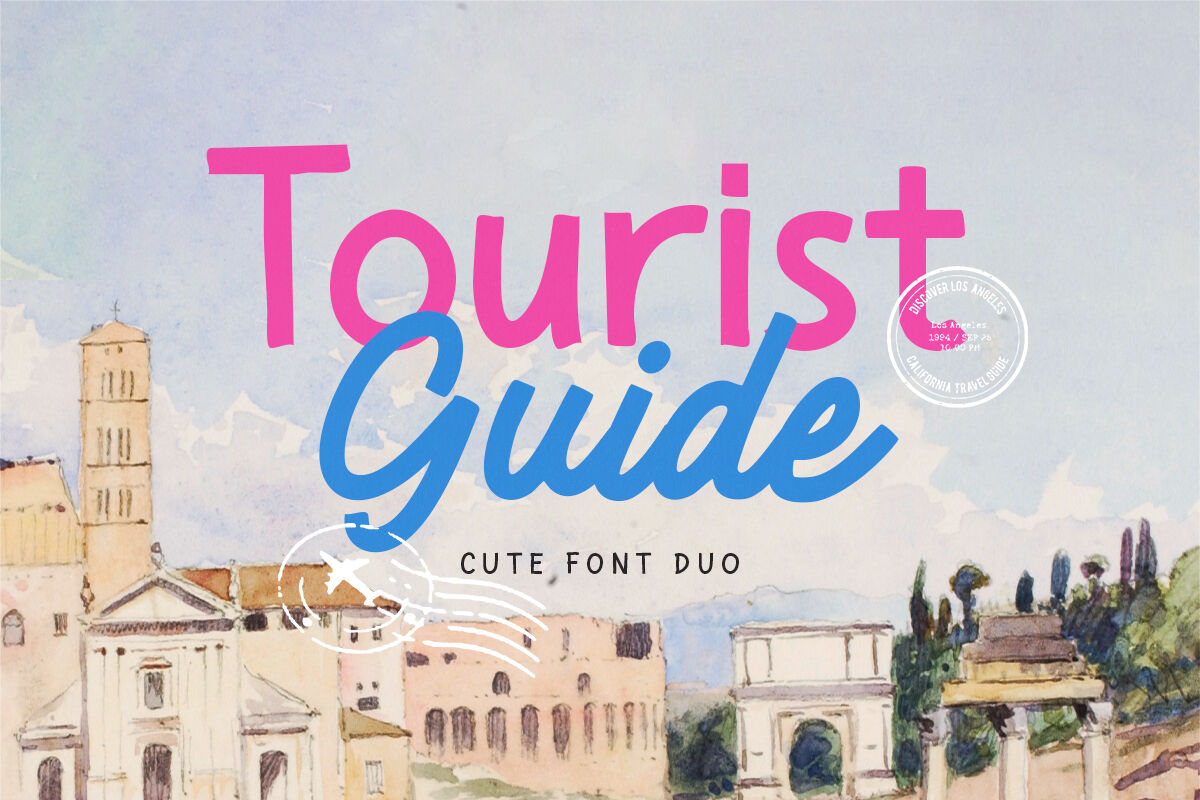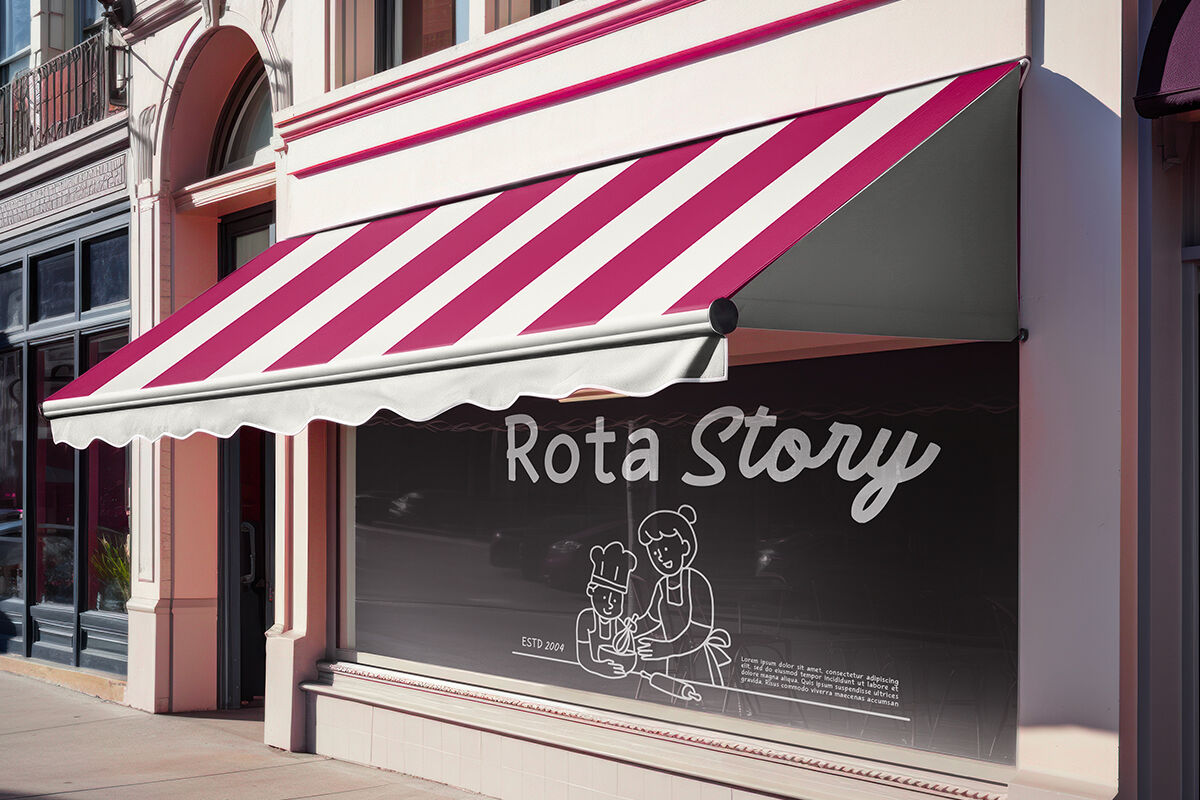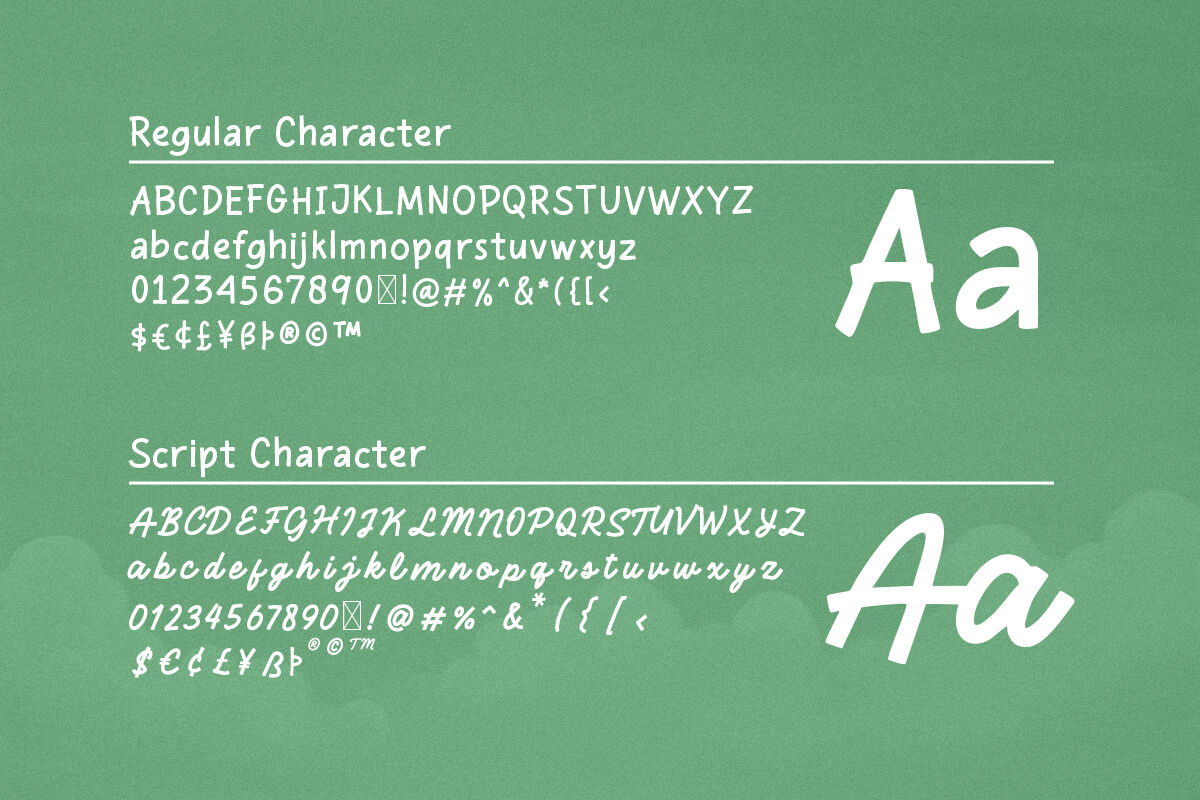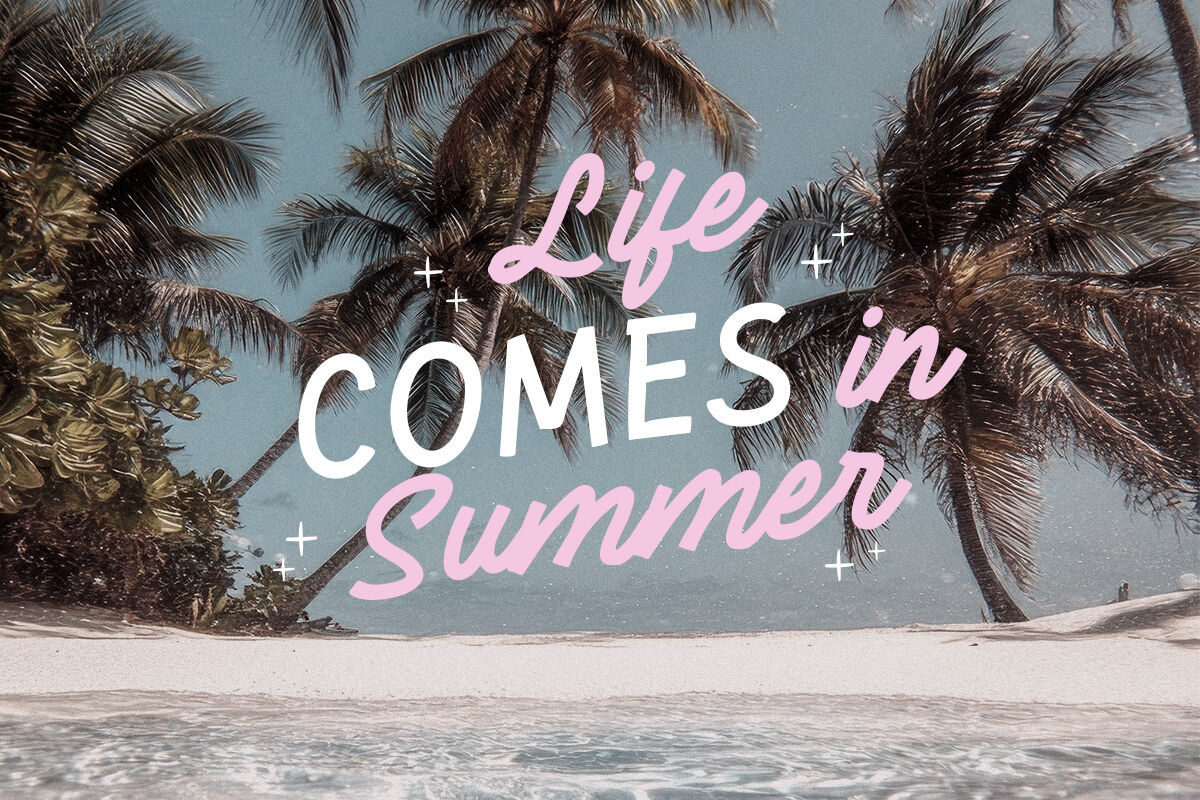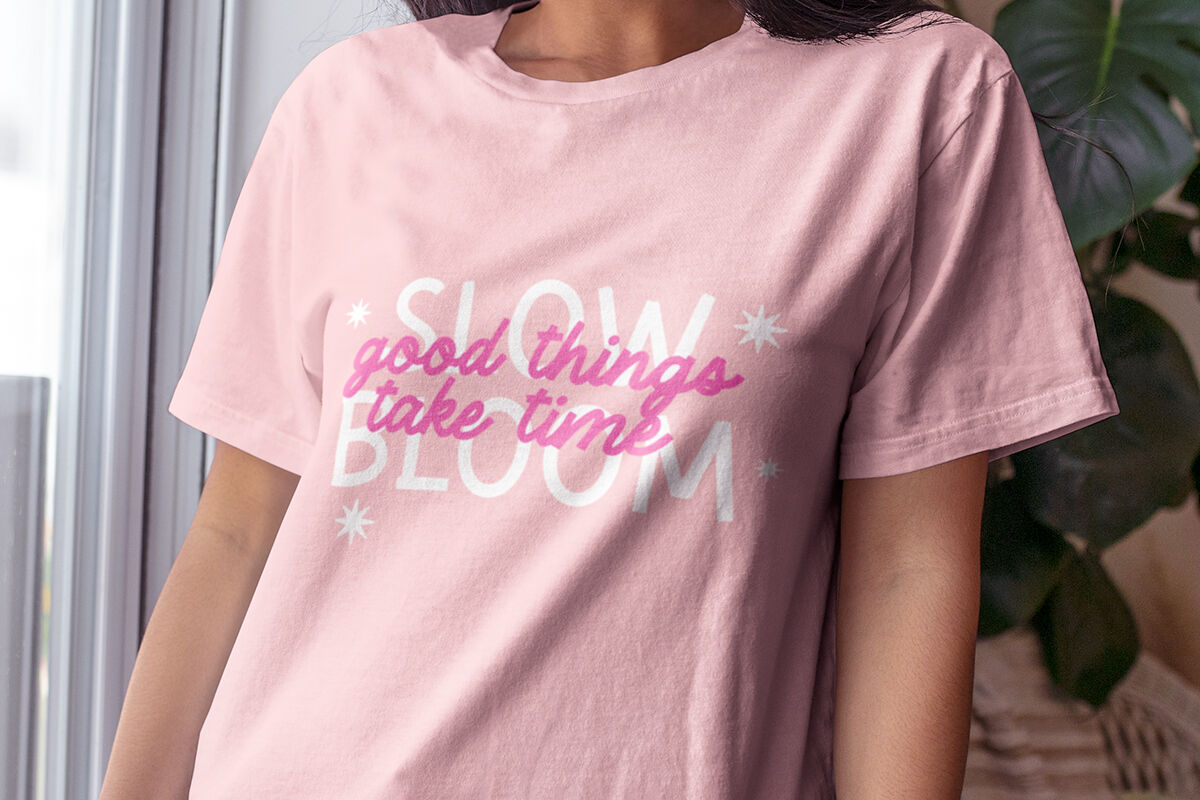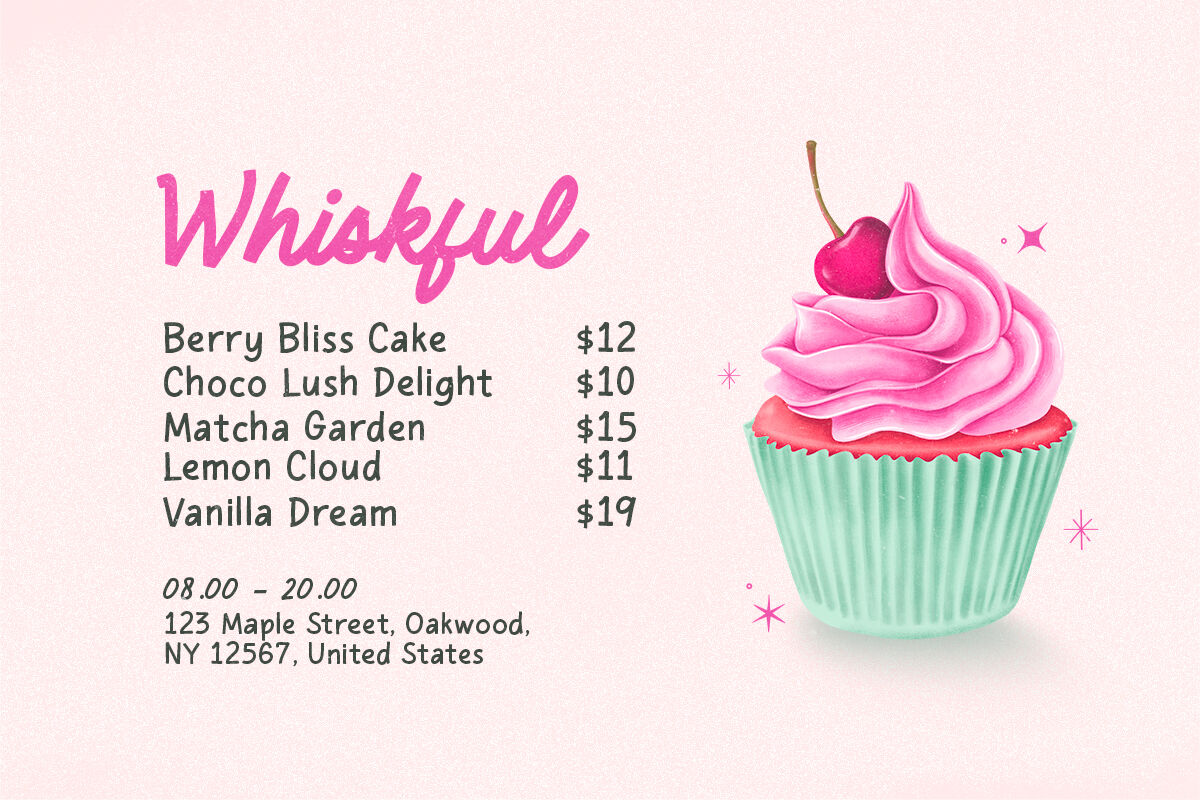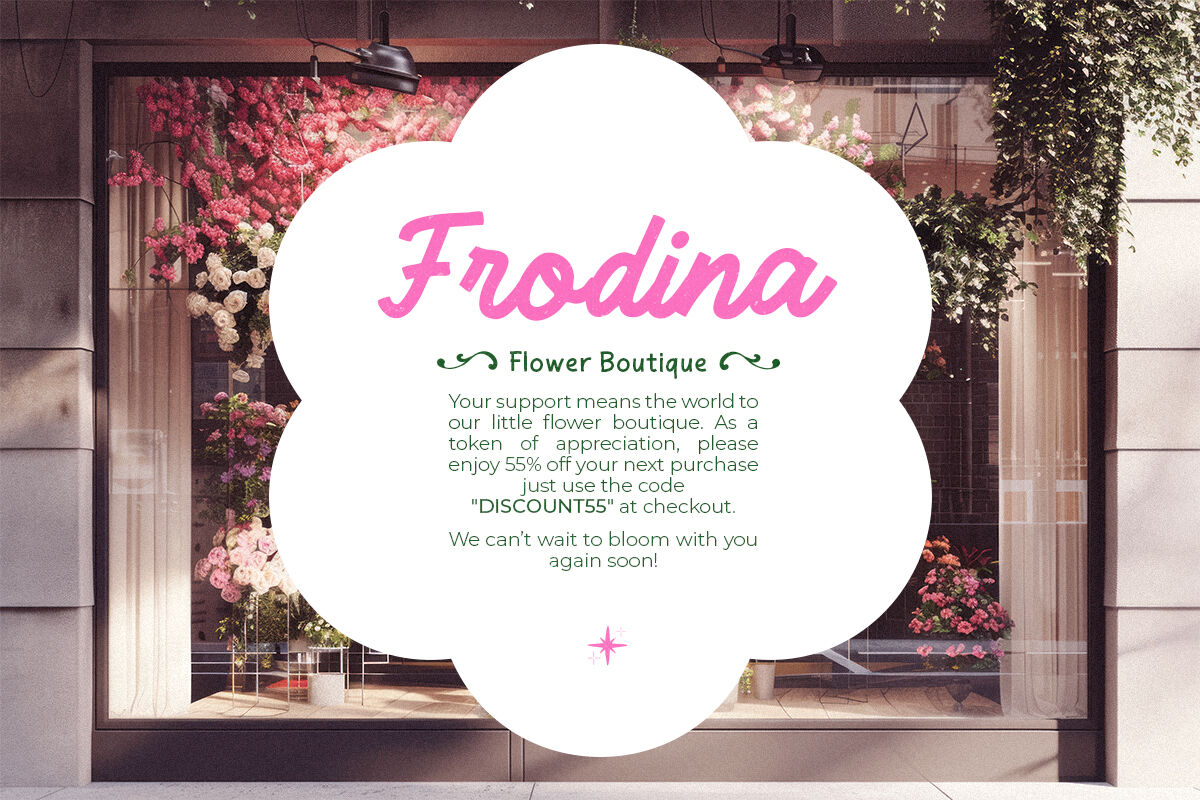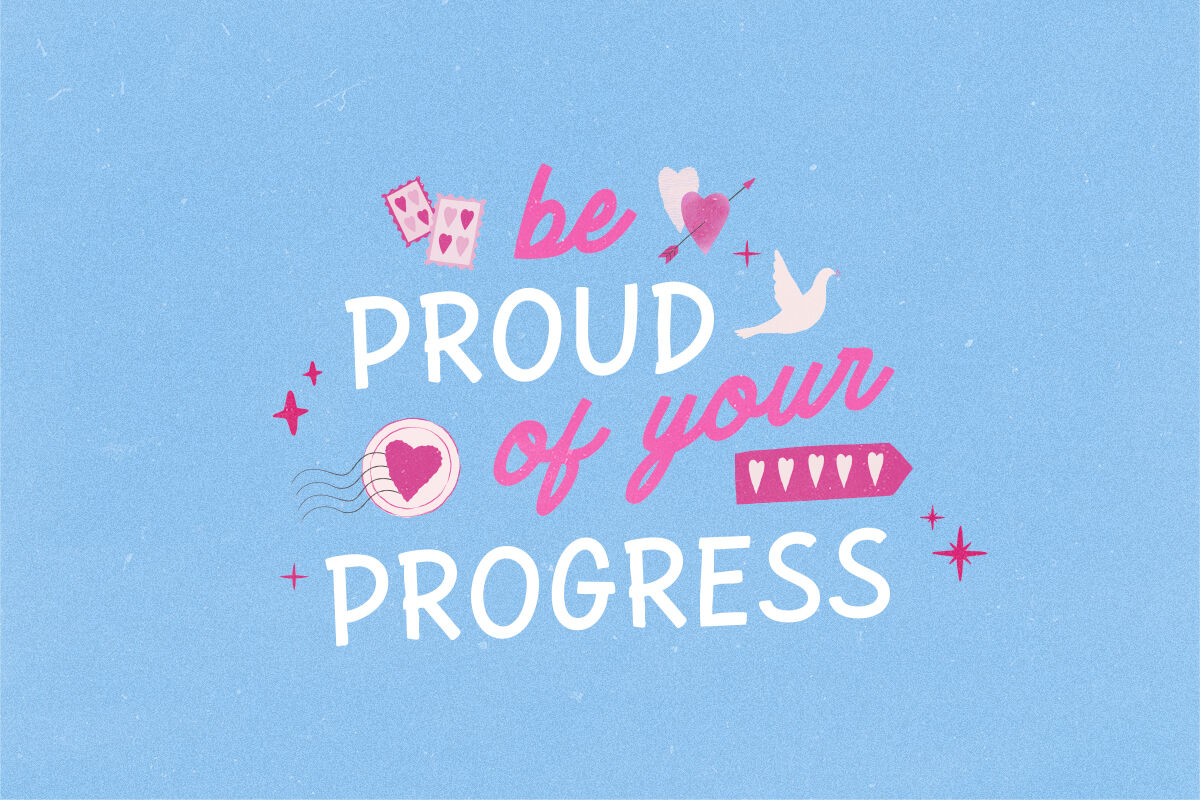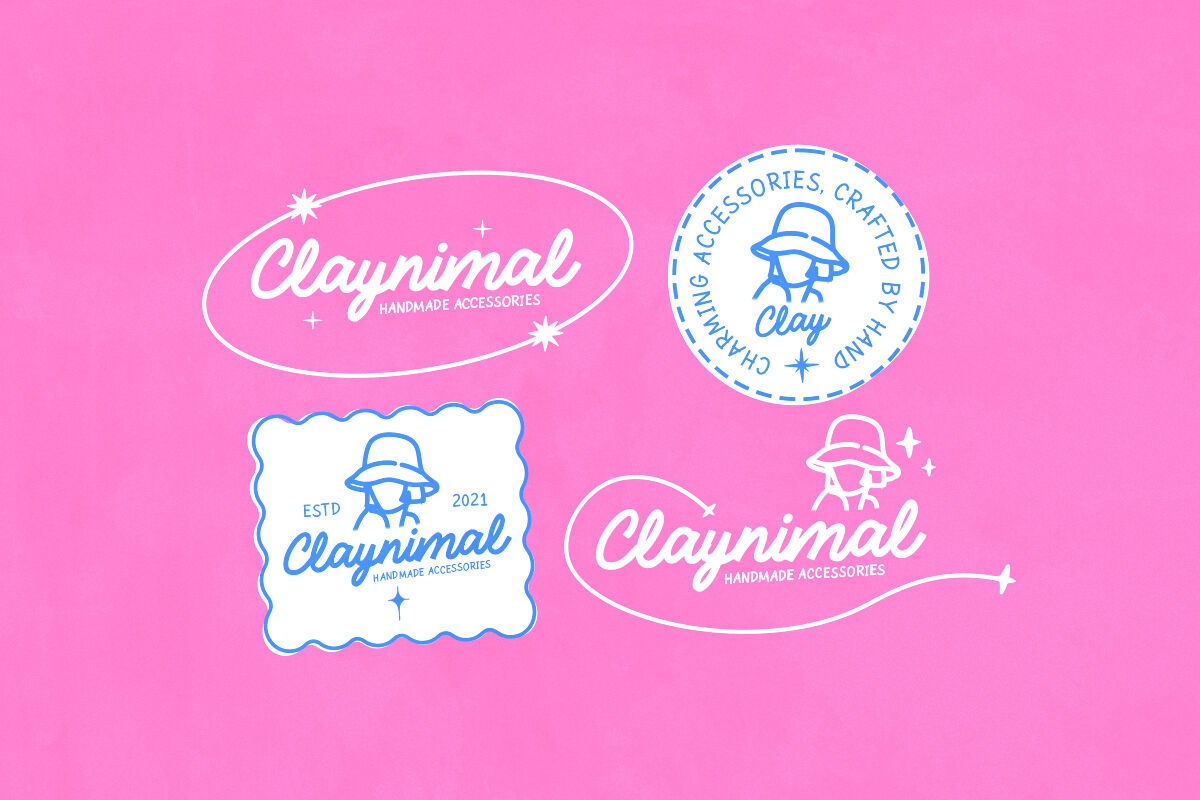
Tourist Guide - Holiday Font Duo
Tourist Guide is a cute holiday font duo that have monoline sans and script that made to look like a hand lettering style. You can use this font for any purpose such as poster, book cover, logo, branding and quote as well. This font is suitable for project that have cute branding or holiday and summer vibes. Tourist Guide also support multi language.